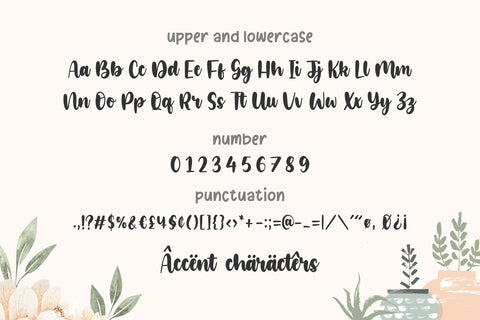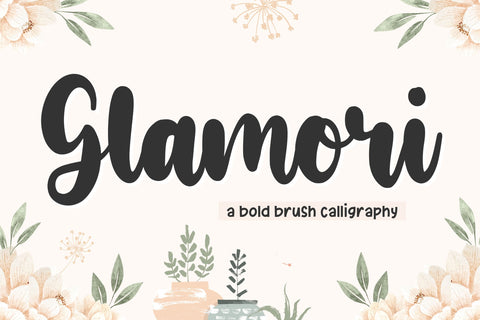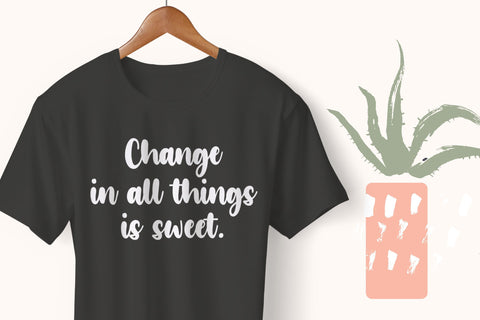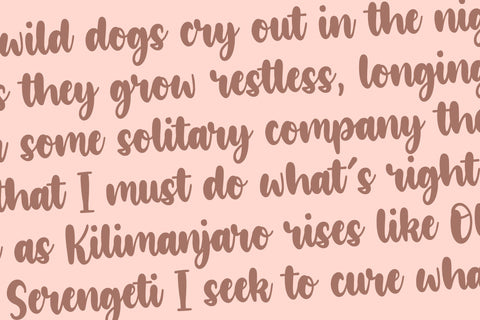
glamori bold brush calligraphy font
Proudly Present, glamori Font.
glamori is a bold brush calloigraphy font.
glamori is perfect for product packaging, branding project, megazine, social media, wedding, or just used to express words above the background.